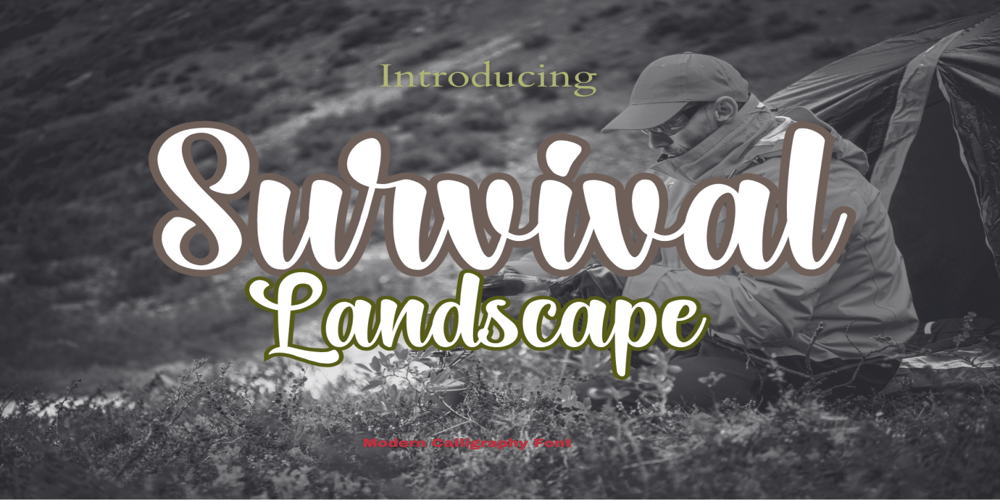
Survival Landscape Font Family was designed by Kanna Aoki and published by Adita Fonts. Survival Landscape contains 1 styles and family package options. About the ProductThe Survival Landscape Script font is a stunning work of art. This beautiful handwritten typeface is great for adding a personal touch to your designs. This stunning font looks great on branding materials, signs & invitations, business cards, and more!